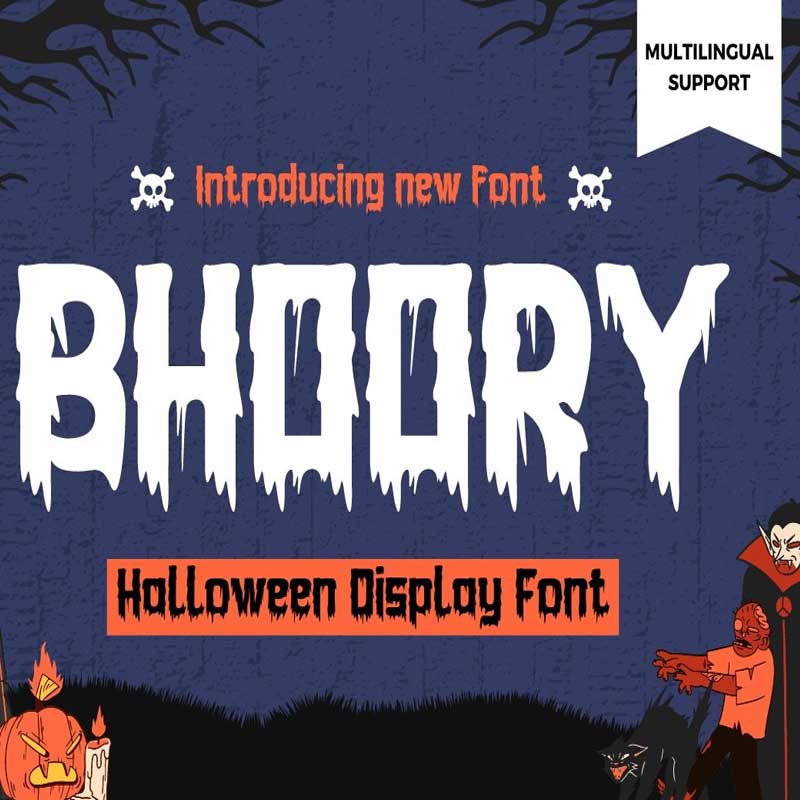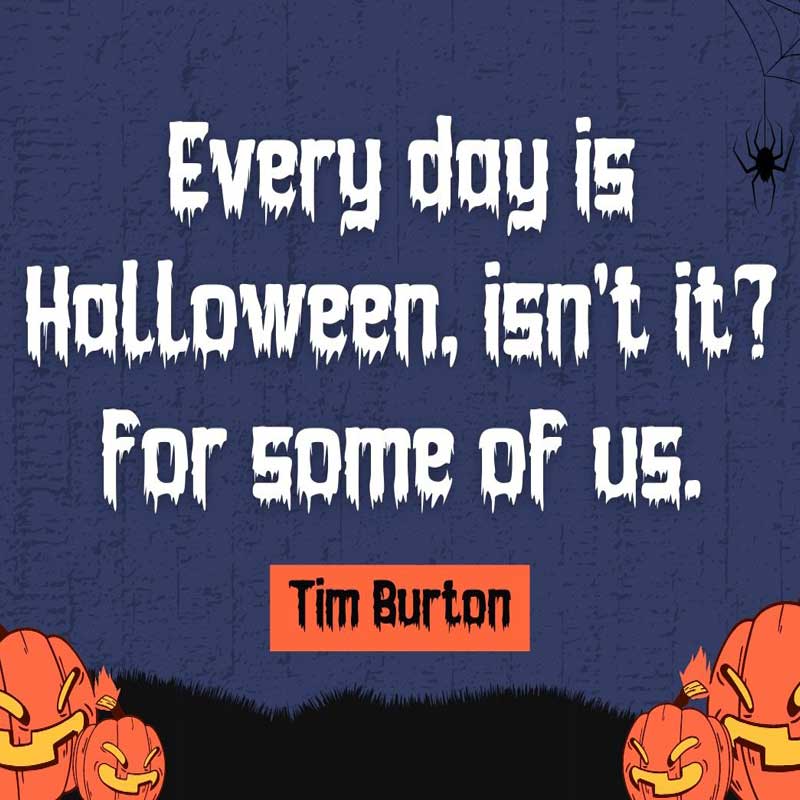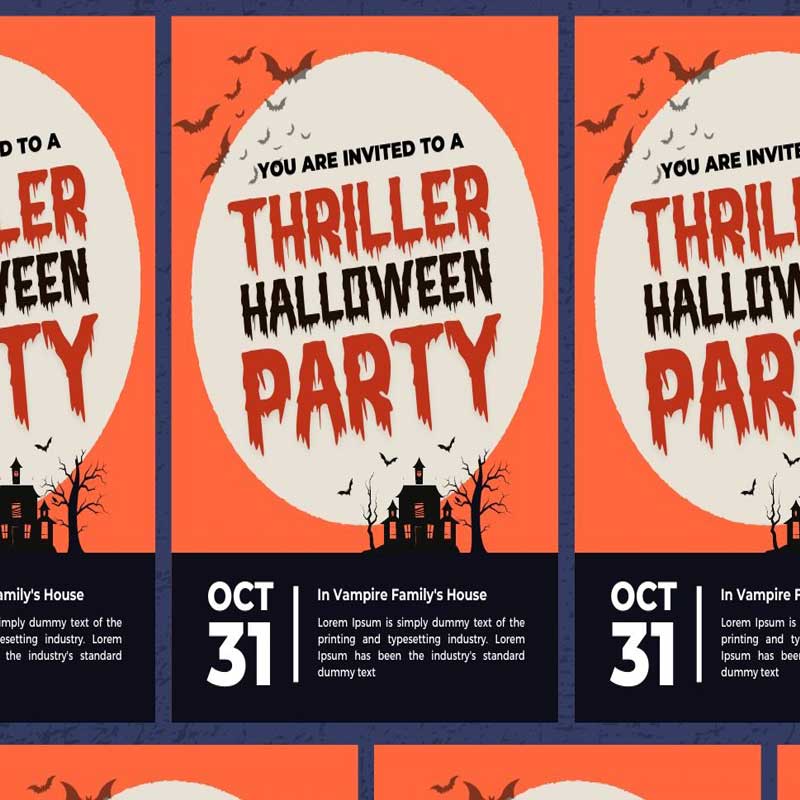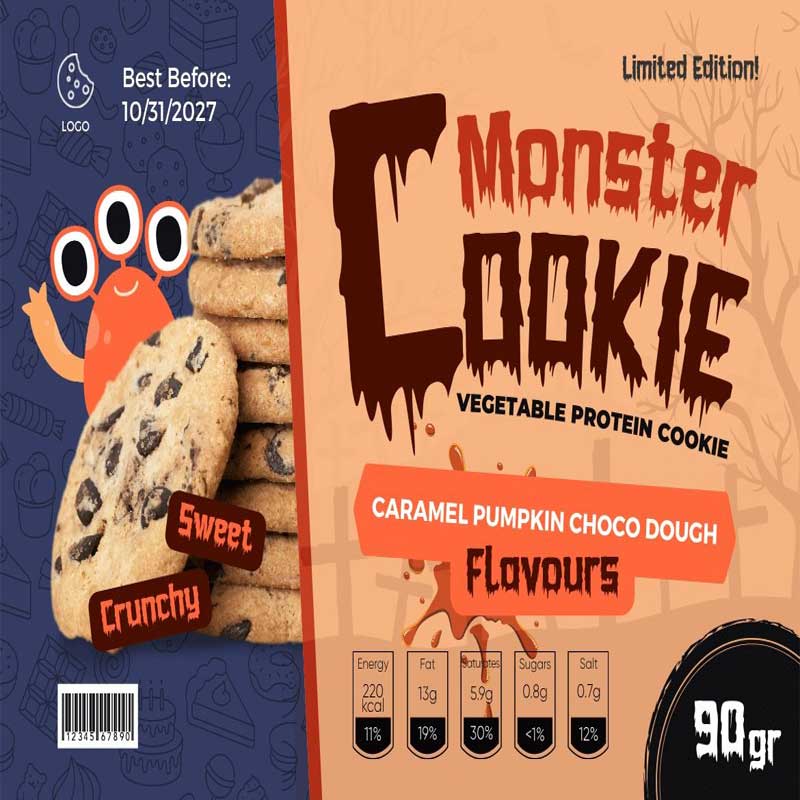
Bhoory Font
Unveil the essence of Halloween with the robust “Bhoory Halloween Font,” designed to elevate your festive creations. From commanding text for event branding to artistic logos, this font is perfect for crafting striking invitations, eye-catching flyers, and dynamic posters. It serves as a standout headline or a decorative touch, offering an artistic or eerie flair to your Halloween projects.